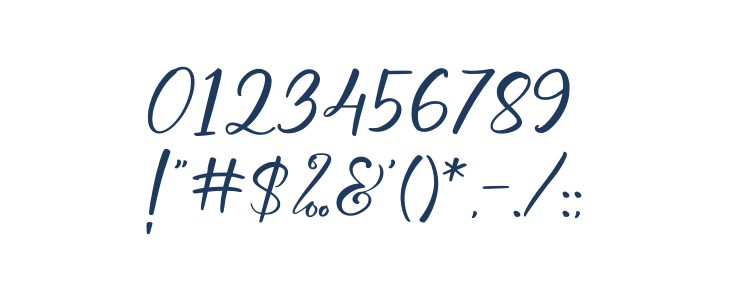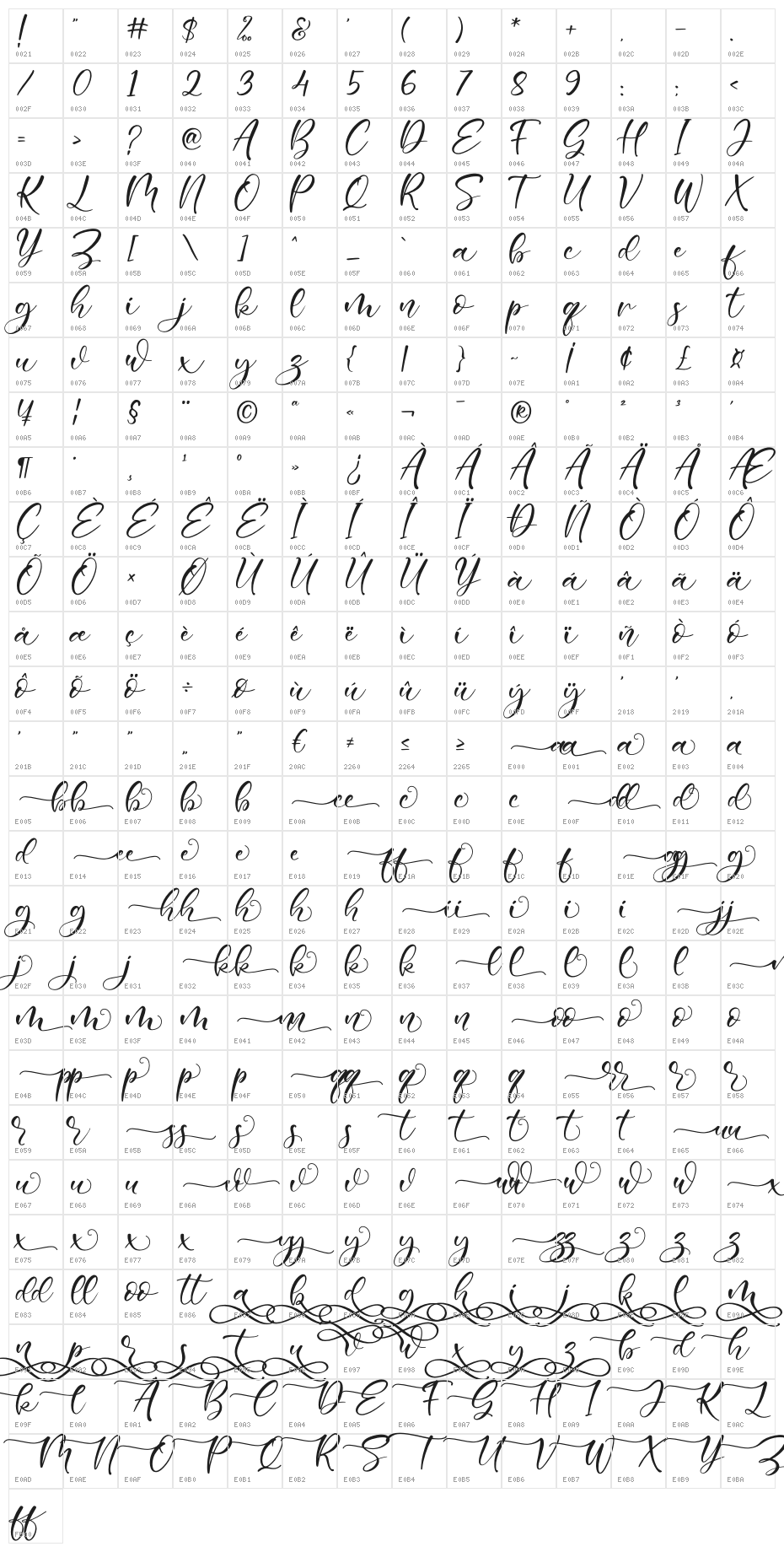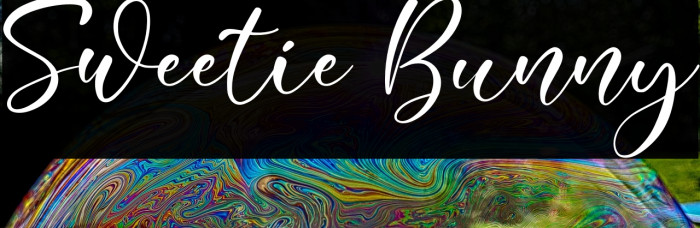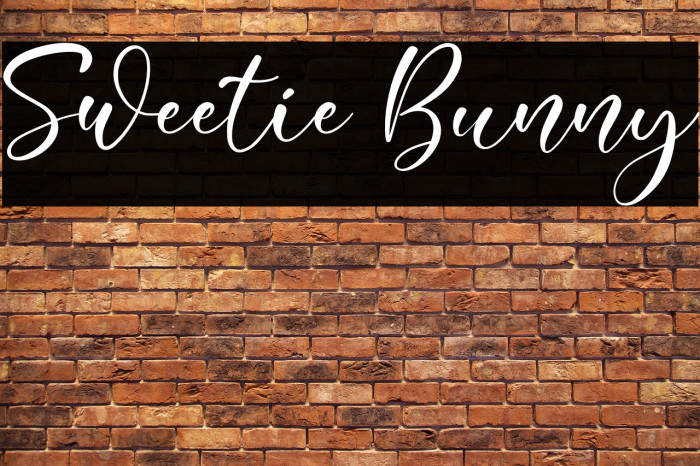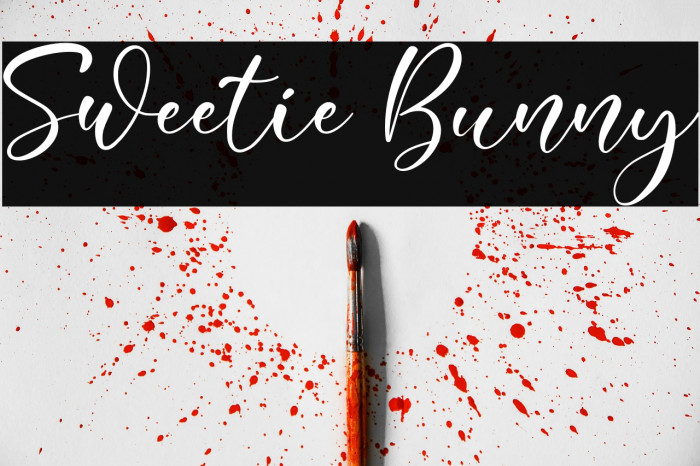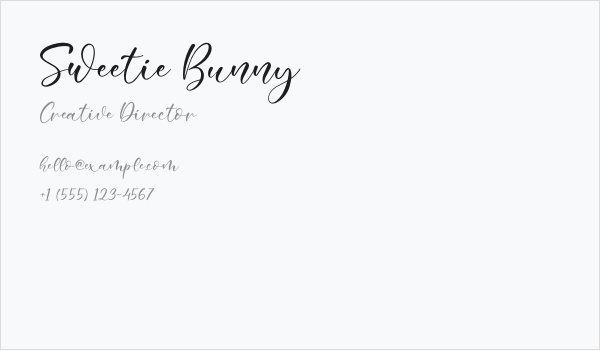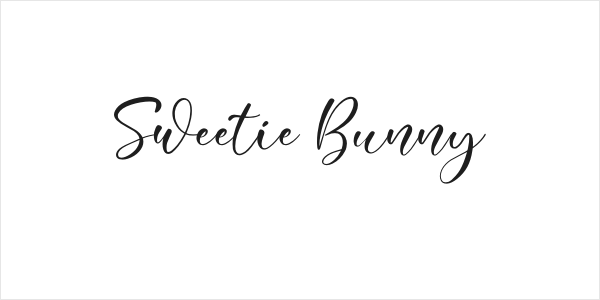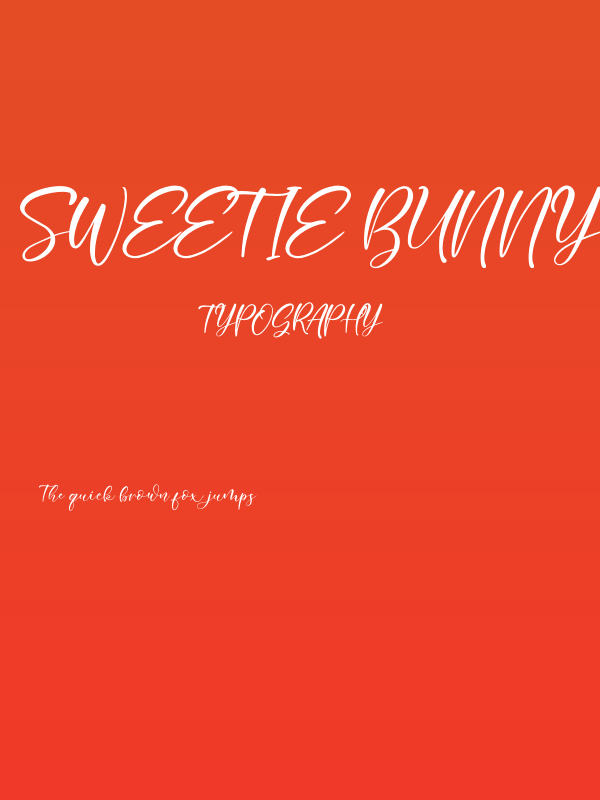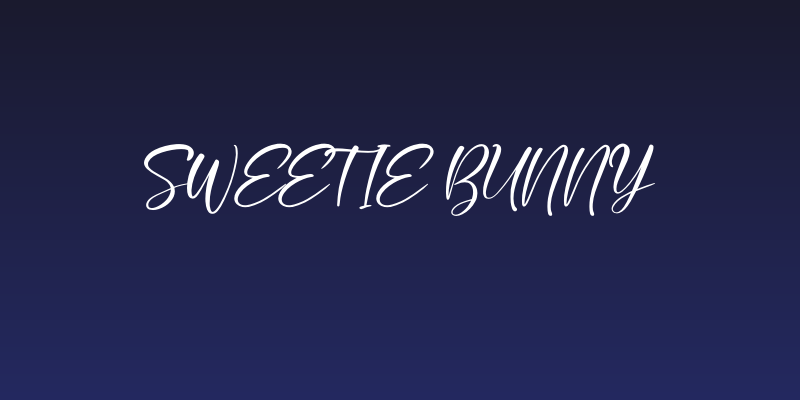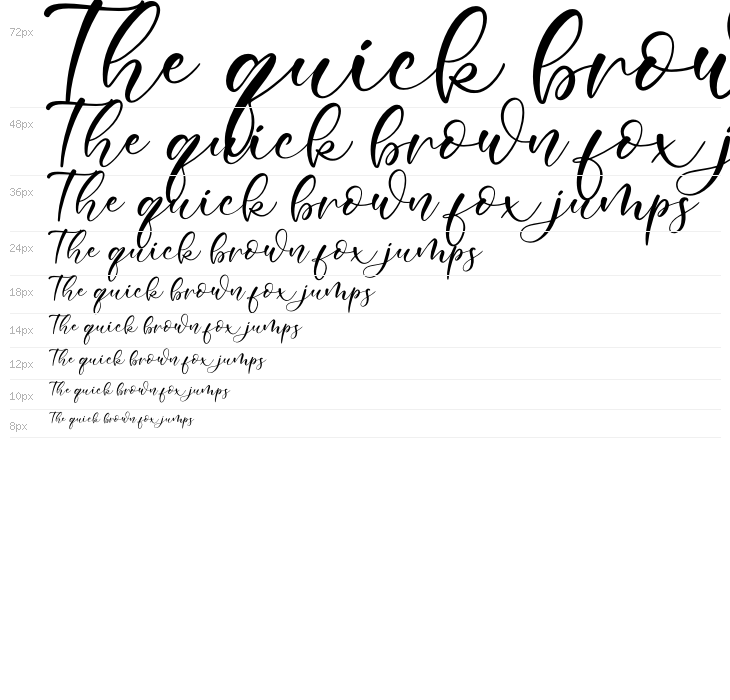
Sweetie Bunny Font
Sweetie Bunny Description
This font exudes a playful and elegant script style, characterized by its fluid, cursive strokes that mimic natural handwriting. The uppercase letters are bold and sweeping, with a graceful flair that adds a touch of sophistication. The lowercase letters maintain a consistent flow, enhancing readability while retaining a whimsical charm. Numbers and special characters are crafted with the same attention to detail, ensuring a cohesive look across all elements. The overall design is both modern and timeless, making it versatile for various creative applications.
| Use Case | Logos, Invitations, Social Media |
| Proposed Projects | Ideal for wedding invitations, greeting cards, branding projects, and social media graphics. |